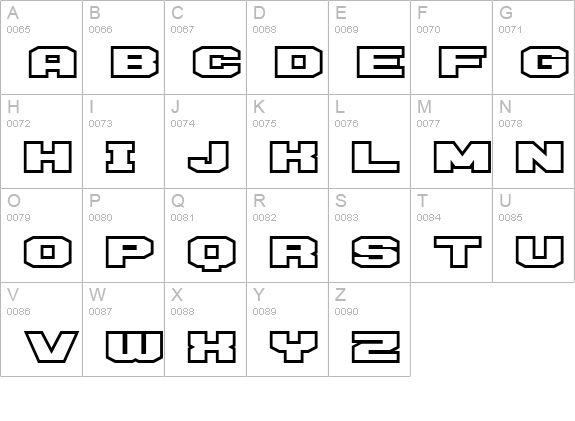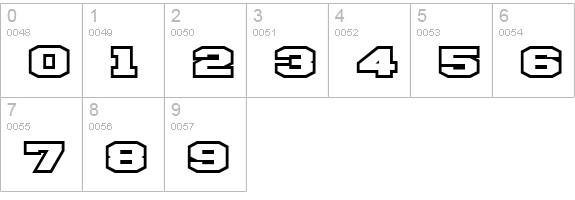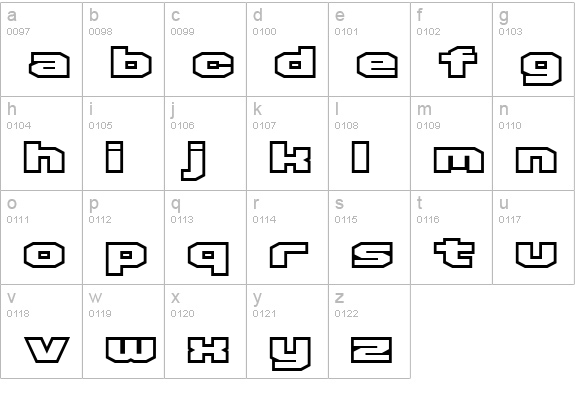
D3 Egoistism outline Font Details
D3 Egoistism outline font is the epitome of modern elegance and sophistication. With its sleek and clean lines, this font exudes an air of confidence and self-assuredness. Each character is meticulously crafted, showcasing a perfect balance between simplicity and intricacy. This font is perfect for those who want to make a bold statement with their typography. Whether it's for a logo, branding, or a striking headline, D3 Egoistism outline font is sure to captivate and leave a lasting impression. What sets D3 Egoistism outline font apart is not just its stunning design, but also the fact that it is freely available to download at FontsMarket.com. This means that you can easily access and use this font without any restrictions or limitations. It offers the freedom to unleash your creativity and make your designs truly stand out. Whether you're a professional designer or a hobbyist, D3 Egoistism outline font is a must-have in your font collection. Its versatility and timeless appeal make it suitable for a wide range of design projects. So why wait? Get your hands on this remarkable font today and elevate your designs to new heights. Download it for free at FontsMarket.com and experience the power of D3 Egoistism outline font.